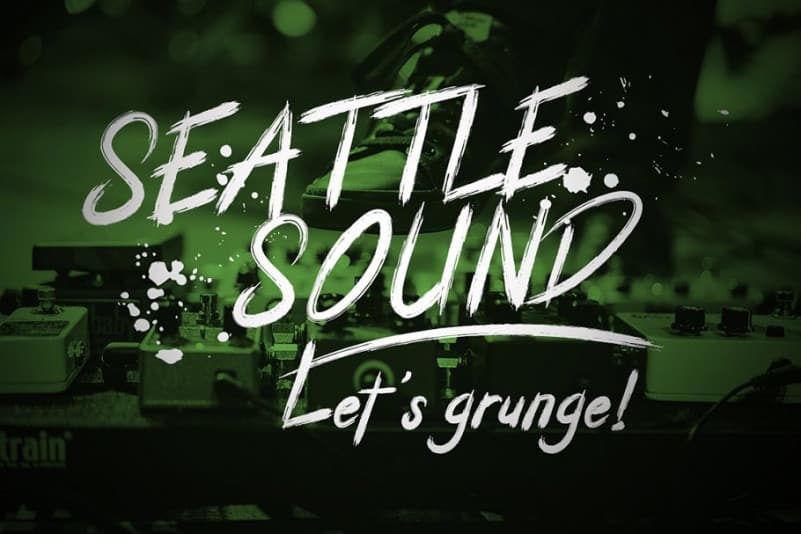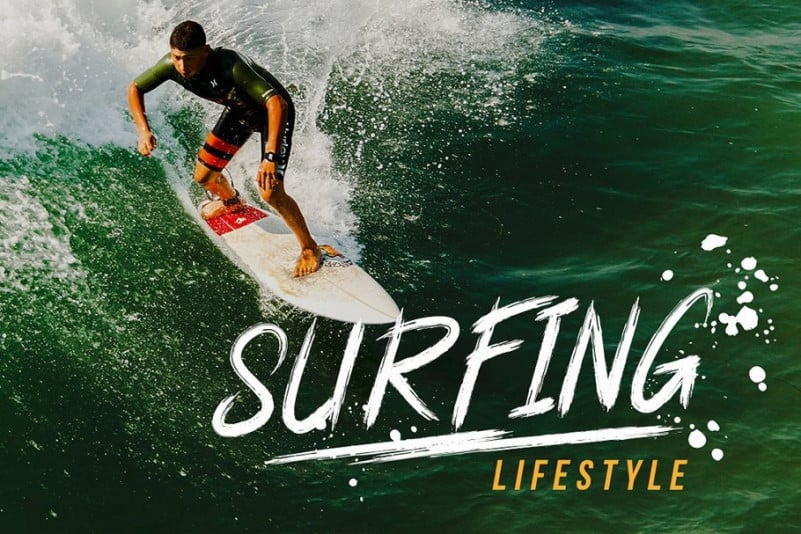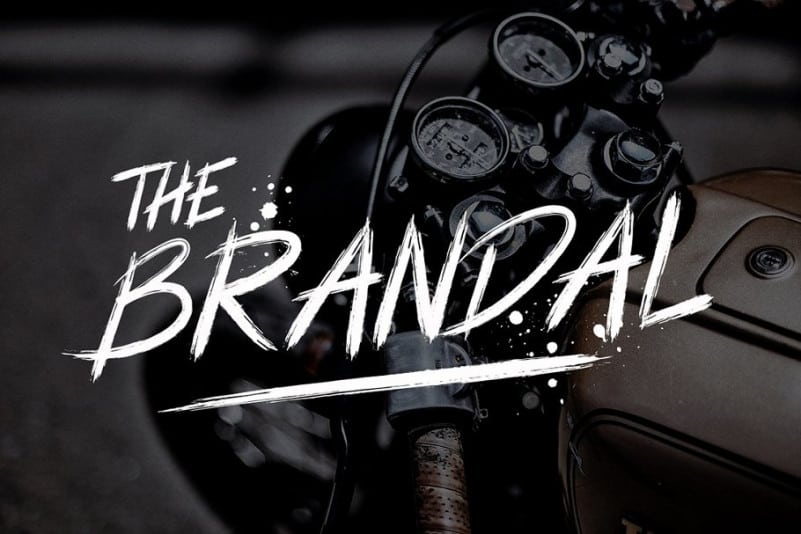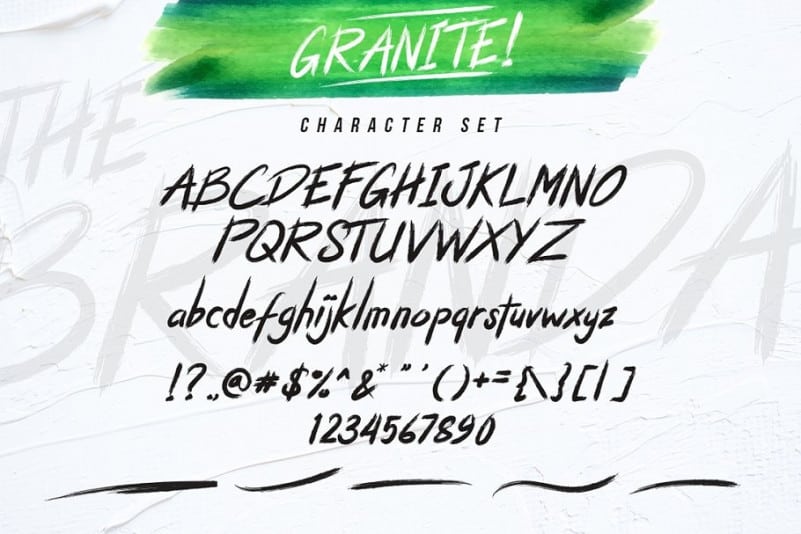
Granite Brush Font
Granite Font is signature brush font with elegant and classy style, contemporary approach to design, handmade natural with an less regular baseline. It is design and shared by Creatype Studio. It’s handmade authentic font brush with stylish street lifestyle and looks like extreme sport style usage. Best match for logos, header, titles, prints, apparel & other creative process possibilities.